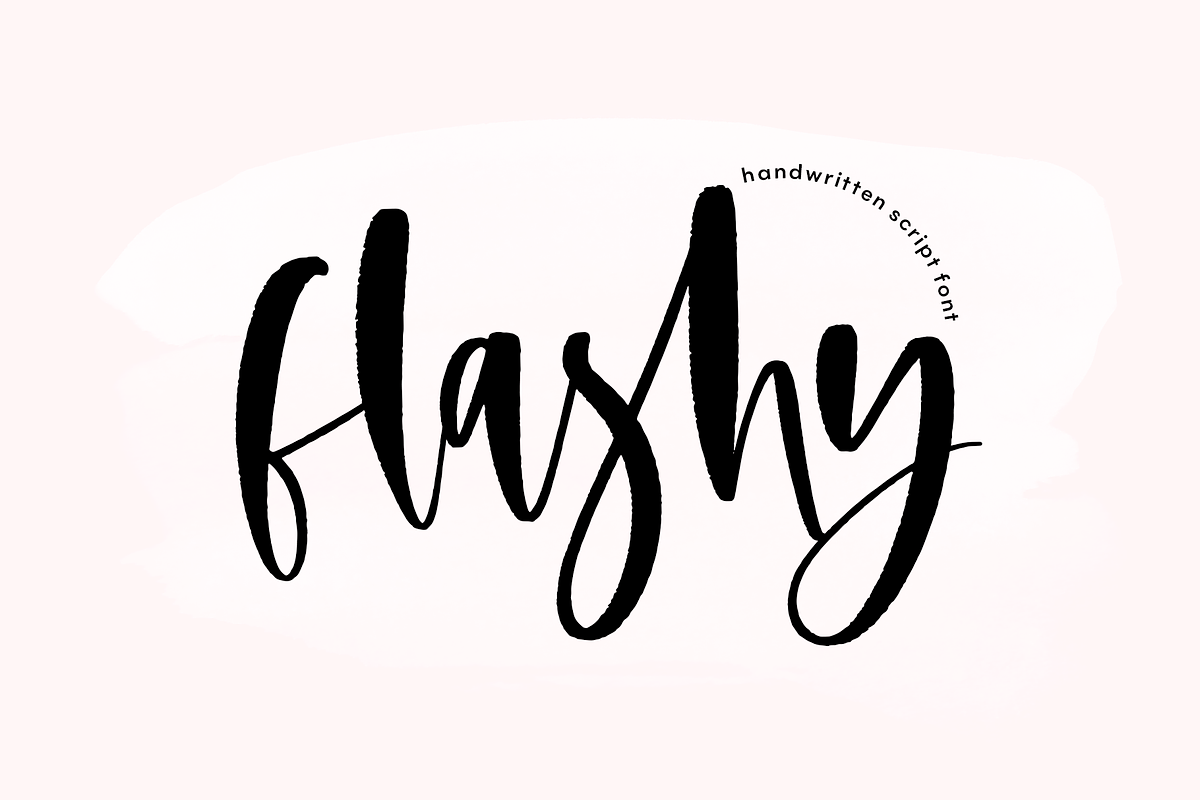
You must purchase this font for commercial use. However, you can download Flashy | Handwritten Script Font Free Download for testing purposes. Flashy is a stylish handwritten script font with bold and playful strokes. Its unique design combines elegance with a casual, artistic flair, making it perfect for branding, logos, social media graphics, invitations, and creative projects that need a personal touch.
With its smooth curves and dynamic style, Flashy is ideal for designs that want to stand out and make an impression while maintaining a friendly, handwritten feel. Whether you're working on a chic brand, a creative campaign, or a special event invitation, this font adds character and charm to your typography.